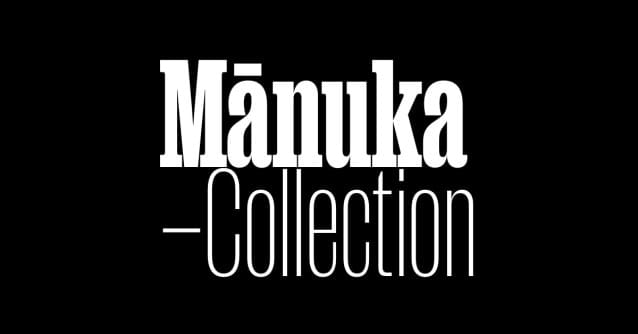
Mānuka Collection Font Family
Mānuka Collection Font Family is a collection of compressed fonts for large sizes. With deviant details pilfered from Teutonic timber type, Mānuka grafts a contemporary antipodean aesthetic onto 19th century German root-stock. Tight spacing, closed apertures and sharp joins make a compelling texture, like sunlight sparkling through a forest canopy.